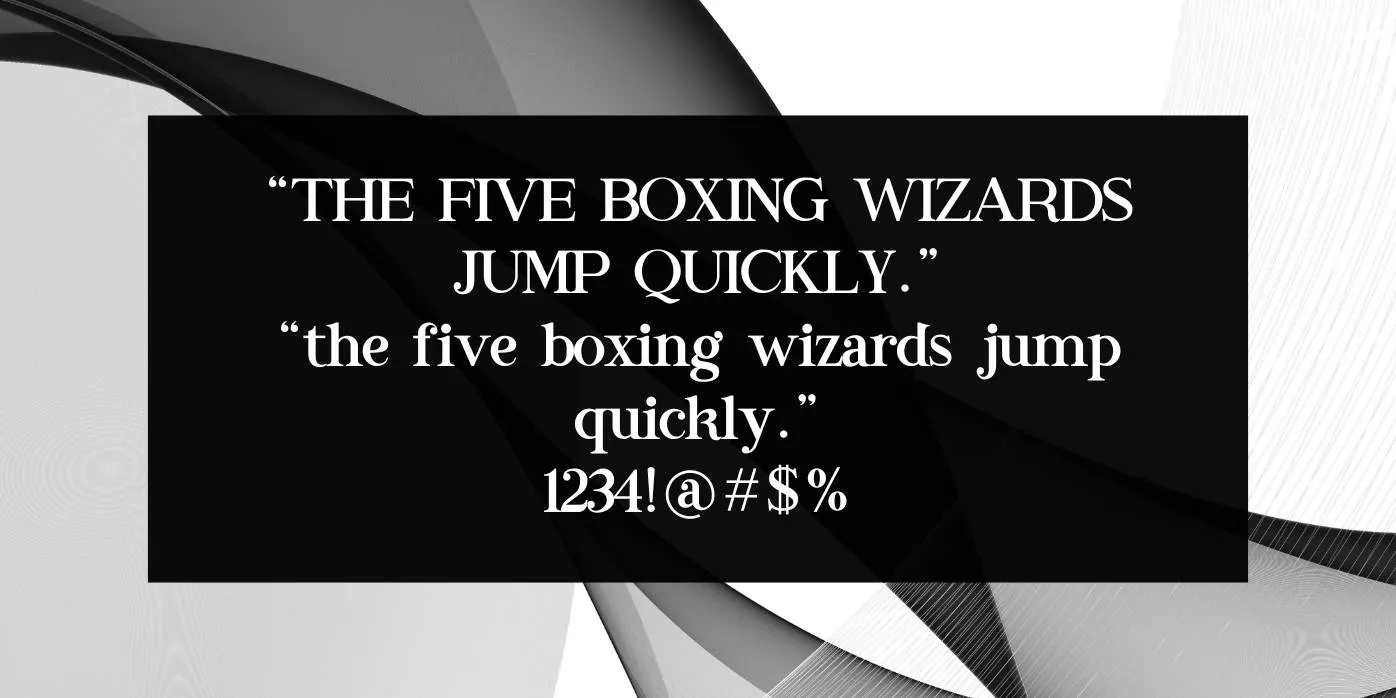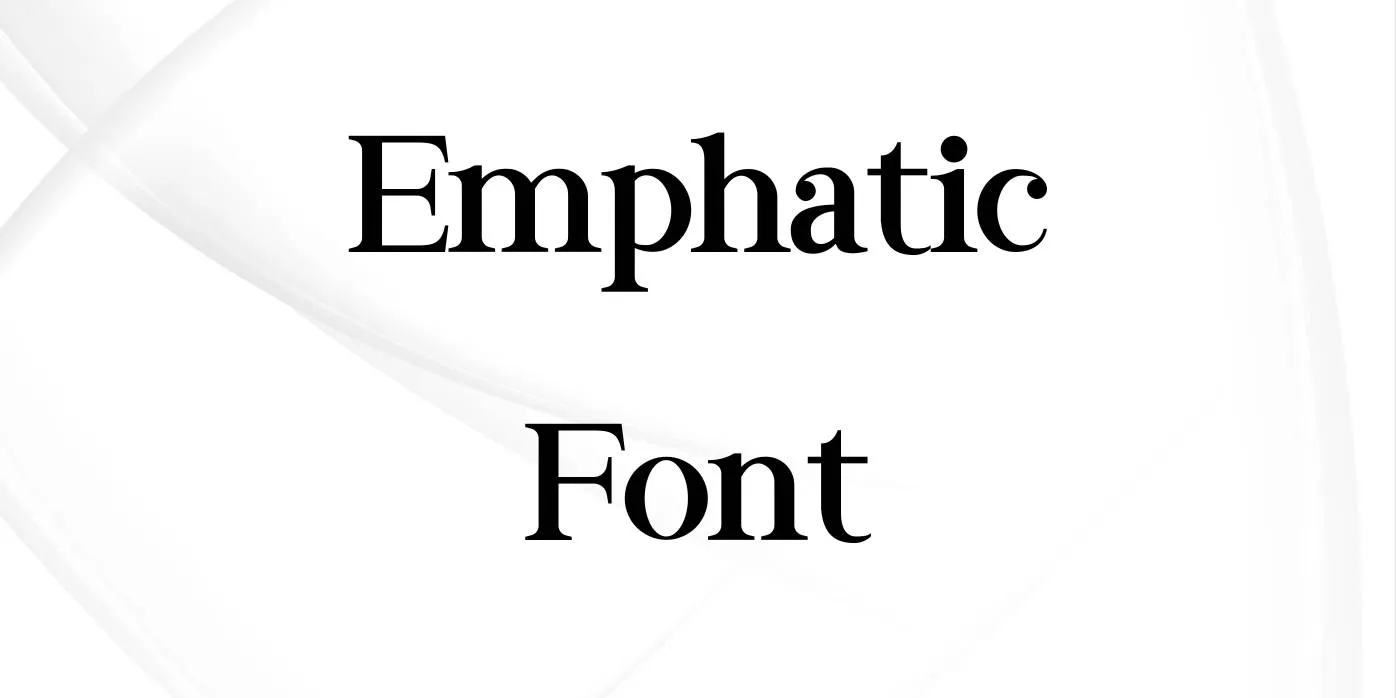
Emphatic Font
You are going to read about the famous serif font. Emphatic Font is a famous serif type of font. Faldy Kudo is a famous graphic designer who designed this amazing font. This serif typeface has only one regular style. The glyphs for this texture are 235 in number.
The characters of this typeface are big, bold, and highly readable. They support all uppercase letters, small letters, numbers, and special characters. This serif font is available to download in OpenType and TrueType font formats. This typeface has good use in a lot of platforms like Windows, Palmtops, Linux, Mac OS, PCs, Android, IOS, Laptops, and many more to explore.